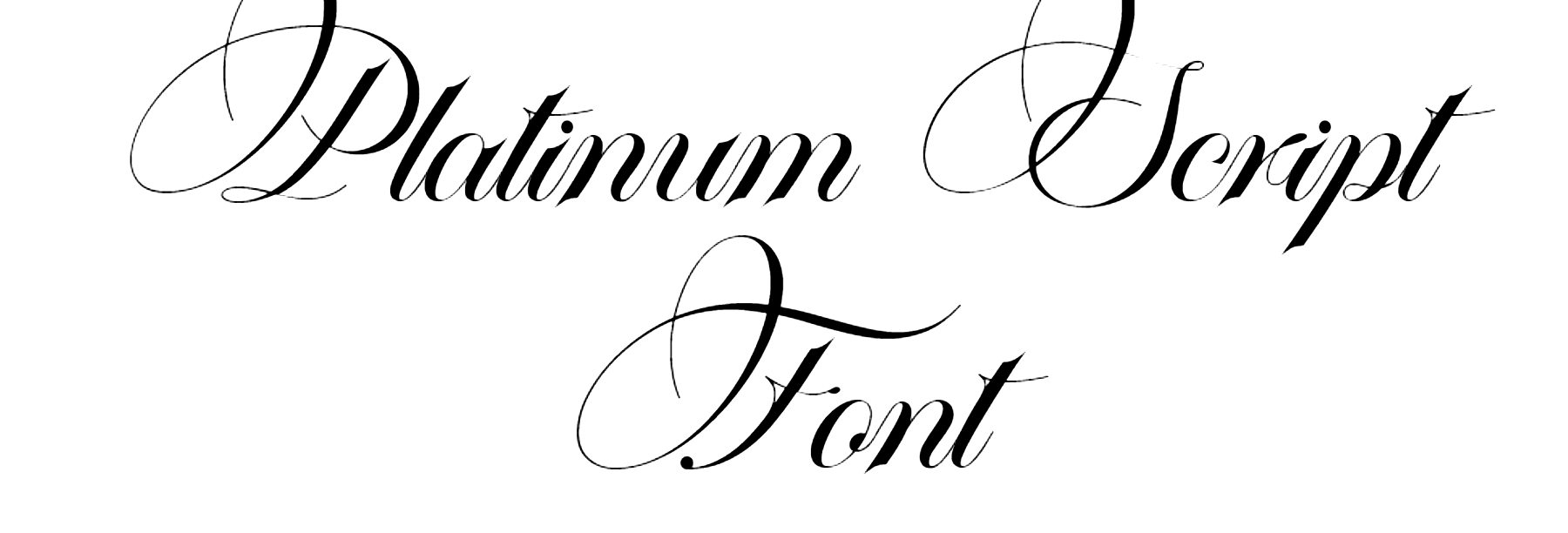
Haikal Juanda of Pista Mova designed Platinum Script, an elegant, fluid calligraphy script typeface that blends classic typographic forms with modern design. Using a relaxed, hand-drawn approach, Juanda crafted organic letterforms that add a luxury feel to high-end projects. Designers frequently use this versatile typeface to elevate wedding invitations, premium branding, book covers, greeting cards, and editorial layouts.
Platinum Script Font Preview
Platinum Script
Platinum Script is a calligraphy font made by Haikal Juanda.